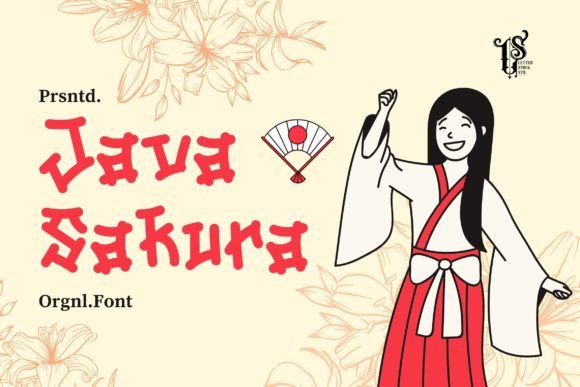
Java Sakura: A Premium Display Font for Authentic Brand Identity
Java Sakura transforms the way small businesses communicate their unique story through a meticulously crafted Japanese-style typeface. As an entrepreneur who has spent years refining my brand's visual voice, I understand that selecting the right Display fonts is not just about aesthetics; it is about establishing immediate trust and recognition with your customers. Java Sakura offers an original hand-drawn aesthetic that brings a sense of warmth, authenticity, and artistic flair to every touchpoint, from the packaging on your shelf to the social media posts that drive your sales.
How Java Sakura Elevates Logo Design and Business Cards
The first impression your business makes often comes down to the typography used in your logo and on your business cards. When you integrate Java Sakura into your logo design, you immediately signal that your brand values craftsmanship and attention to detail. This handwritten font style captures the charm of an artist's hand, making your business card feel personal rather than mass-produced. For boutique owners or creative service providers, using this creative font ensures that your contact information stands out while maintaining a professional yet approachable tone. By choosing a distinctive typeface like Java Sakura, you create a memorable visual anchor that clients can easily recall when they need your services again.
Java Sakura for Product Labels and Packaging Design
In the competitive world of handmade goods, your product label is your silent salesperson. Java Sakura excels as a display font on product labels because its organic curves mimic the natural imperfections found in artisanal items. Imagine applying this font to a jar of homemade candle wax, a bottle of organic skincare, or a box of gourmet coffee beans; the Japanese style adds an exotic and sophisticated layer to your packaging design. The distinct strokes of the letters draw the eye, encouraging customers to pick up your item over competitors' generic options. Whether you are selling physical goods at a farmer's market or shipping directly to customers online, consistent use of Java Sakura reinforces your brand identity and elevates the perceived value of your products.
Java Sakura for Café Menus and Restaurant Flyers
For food and beverage entrepreneurs, setting the right mood is essential, and Java Sakura delivers an inviting atmosphere that feels both modern and traditional. When designing a café menu or promotional flyers, this premium font allows you to highlight daily specials or signature drinks with an enchanting allure that matches the sensory experience of your food. The hand-drawn artist quality of the letters creates a connection between the chef or barista and the diner, suggesting that care was put into every dish. Unlike standard serif or sans serif fonts, Java Sakura adds personality without sacrificing readability, ensuring that your customers can easily scan prices and descriptions while enjoying the visual appeal of the layout.
Java Sakura for Social Media Graphics and Website Banners
Digital marketing relies heavily on visual consistency to build a loyal following, and Java Sakura serves as a powerful tool for creating cohesive social media graphics. When used in Instagram posts, Pinterest pins, or website banners, this font helps your content stand out in crowded feeds by offering a unique texture that plain text cannot achieve. Small business owners can leverage the enchanting allure of Java Sakura to announce new launches, share behind-the-scenes content, or run holiday promotions. Because the letters have a distinct character, they act as effective headlines that grab attention instantly, driving traffic to your online shop or booking page. Pairing this decorative typeface with clean body text ensures that your digital ads remain legible across mobile screens while still looking stylish.
Java Sakura for Wedding Invitations and Event Branding
Beyond commercial products, many entrepreneurs also offer event-related services or personal branding materials where elegance is paramount. Java Sakura is perfectly suited for wedding invitations, anniversary cards, and event branding because its flowing lines evoke romance and celebration. The original hand-drawn nature of the letters gives each invitation a bespoke feel, which is highly valued by couples planning special occasions. By incorporating this script font alternative into your event stationery, you provide a level of sophistication that sets your work apart from template-based designs. Whether you are a stationery designer or a couple managing your own wedding details, Java Sakura provides the perfect balance of formality and artistic expression.
Before committing to Java Sakura across your entire brand identity, it is wise to test how the fonts perform in various real-world scenarios. Start by creating mockups of your most important assets, such as your website header, product tags, and email newsletters, to see how the letterforms interact with your existing color palette and imagery. Pay close attention to readability, especially if you plan to use the font for smaller text like ingredient lists or fine print on packaging. While Java Sakura is designed to be visually striking, it functions best as a headline or accent font rather than for long paragraphs of body copy. Experiment with different sizes and weights to ensure that the intricate details of the hand-drawn style remain clear even when scaled down.
Effective Font Pairing Strategies for Professional Results
To maximize the impact of Java Sakura, strategic font pairing is key to maintaining a professional look. Since Java Sakura is a decorative display font with strong personality, it pairs exceptionally well with clean, neutral typefaces that allow it to shine. Consider combining it with a simple sans serif font for body text on websites or a classic serif font for formal documents to create a balanced hierarchy. This contrast ensures that your message remains clear and readable while the Japanese style of Java Sakura provides the emotional hook. By limiting the use of multiple decorative fonts and relying on a solid supporting typeface, you create a cohesive brand identity that looks polished and intentional.